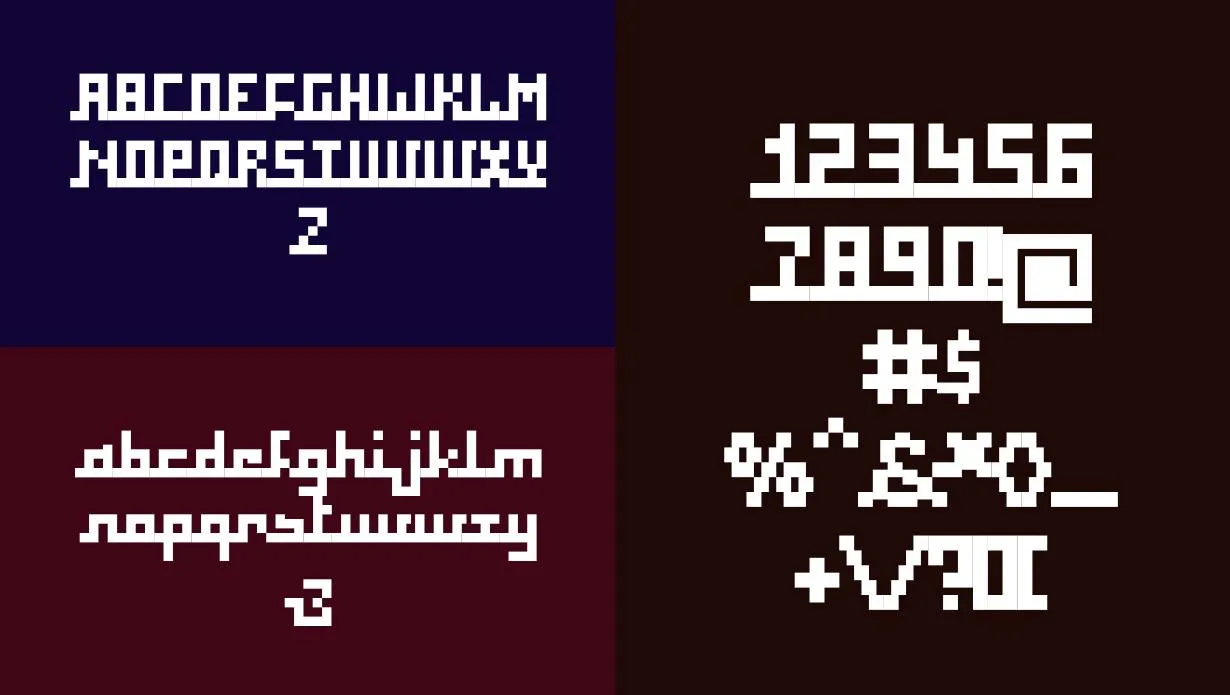
Square Font is a sleek and modern typeface that adds a contemporary touch to design projects. With its clean lines and versatile design, it’s often used in branding, web design, and various applications where a modern and sophisticated look is desired.
| Name | Square Font |
| Designer | Ryoichi Tsunekawa |
| Style | Techno |
The font’s simplicity and clarity make it a valuable tool for creating sleek and professional design work.